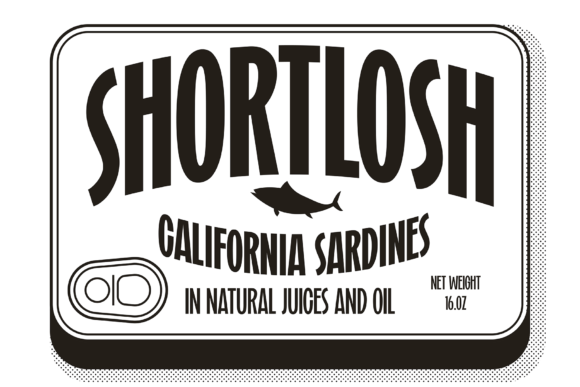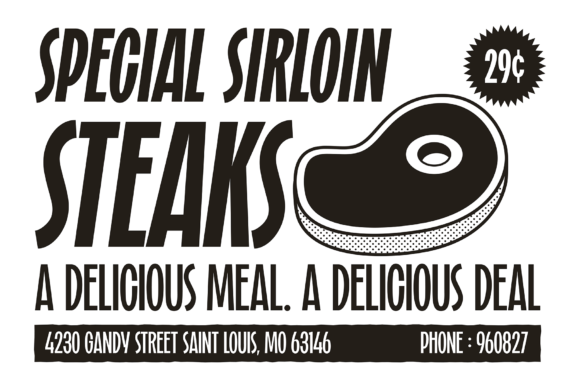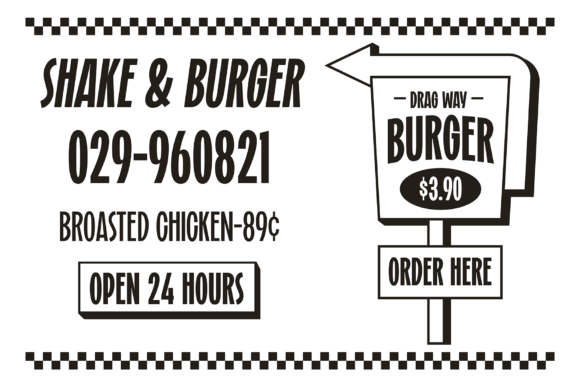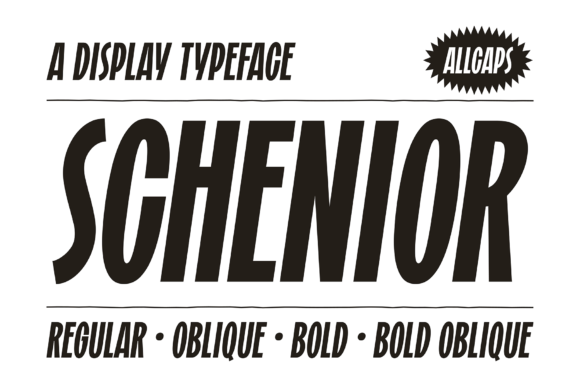
Introduction to Schenior Font
Schenior is a bold, thick lettered and cool display font.
It will look stunning on any poster, flyer or print Use this font for your designs and explore its endless possibilities.
Why Choose Schenior Font?
Schenior Font offers exceptional quality and versatility, making it a valuable addition to your design toolkit. Whether you’re creating for personal projects or commercial use, Schenior Font delivers professional results.